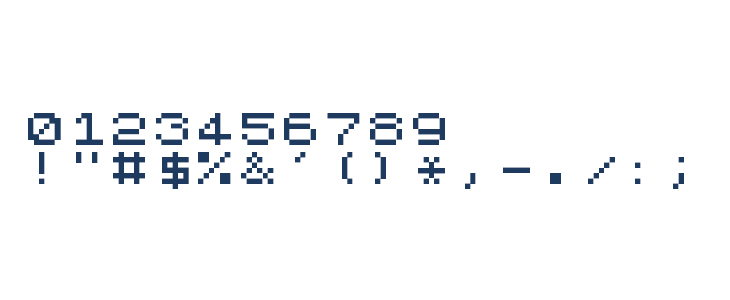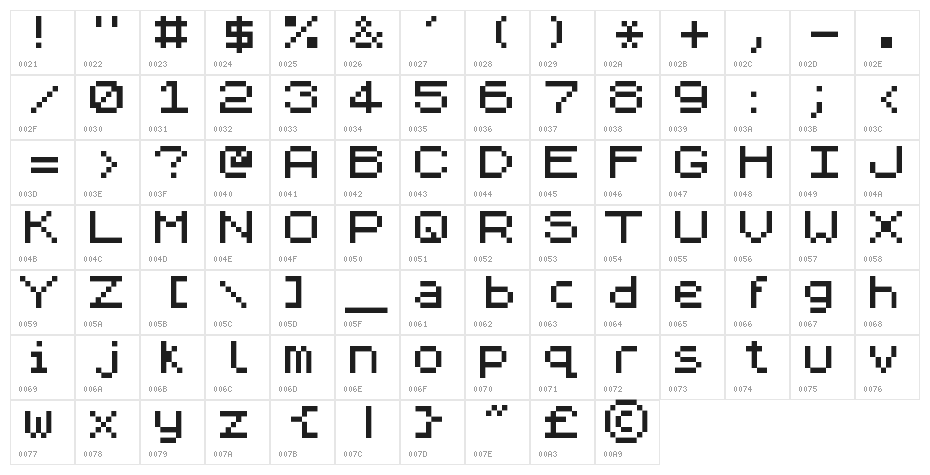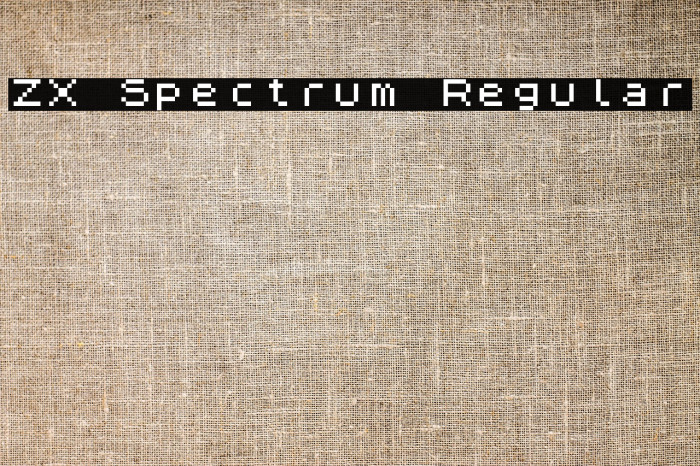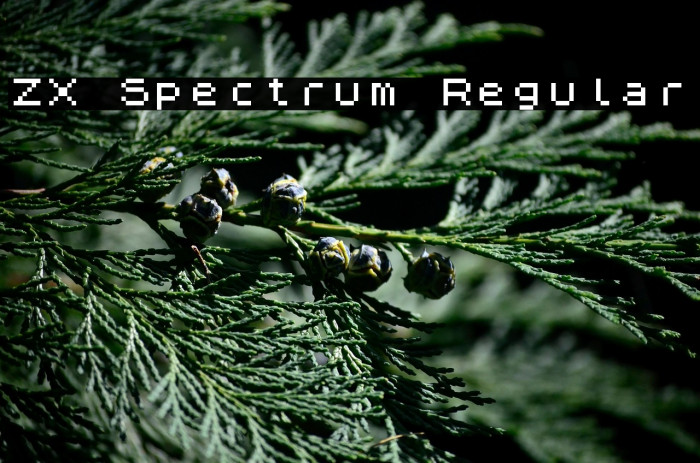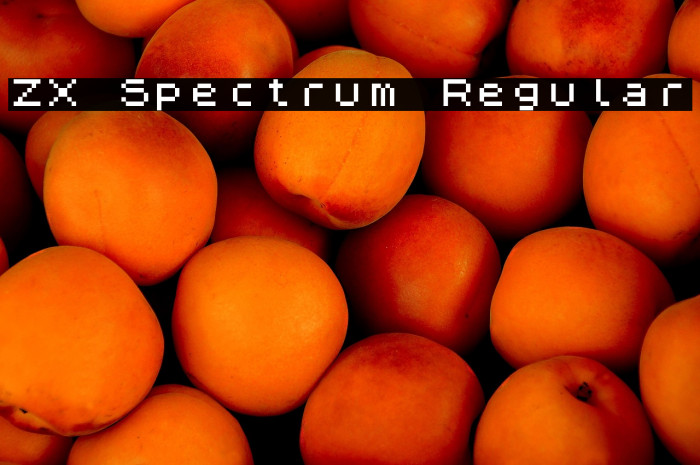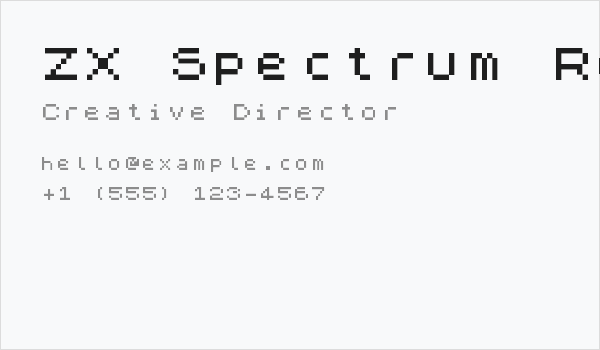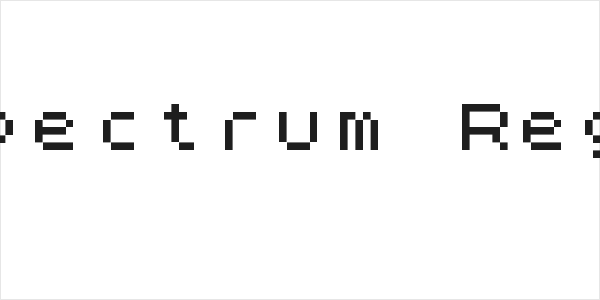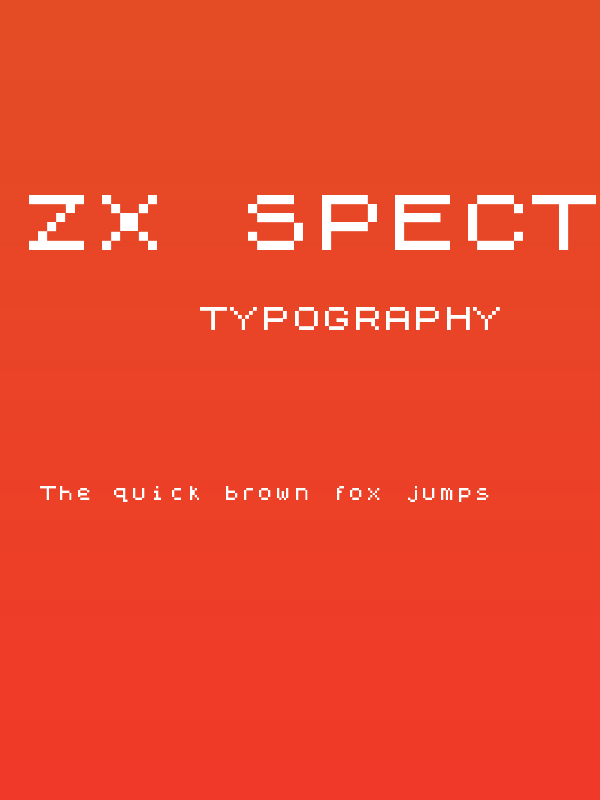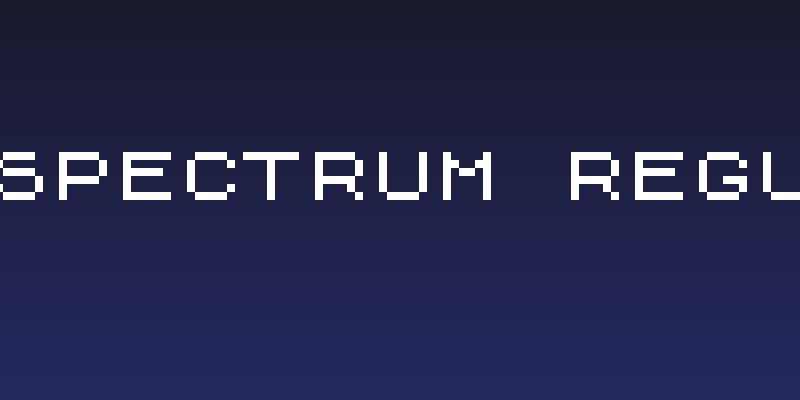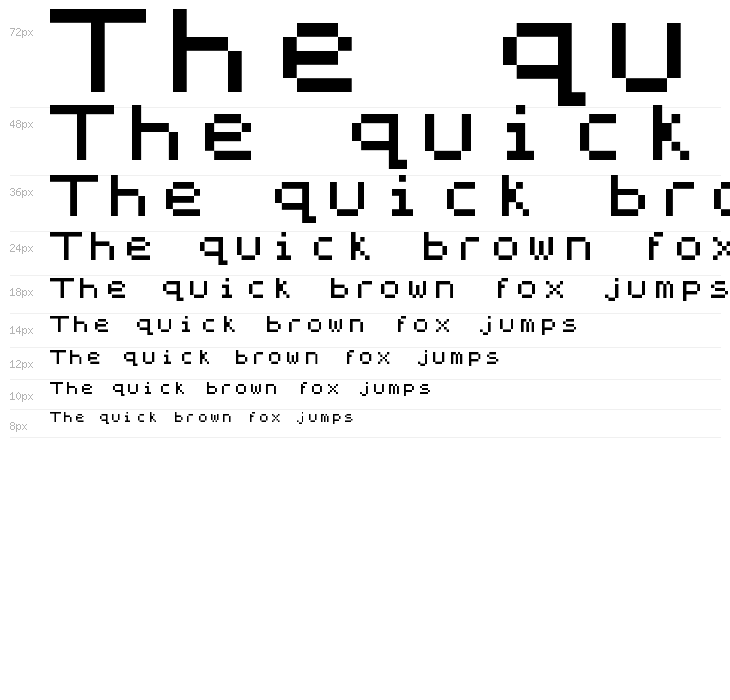
ZX Spectrum Regular Font
ZX Spectrum Regular Description
This font is a pixelated, monospaced typeface reminiscent of classic video game and computer fonts from the 1980s. Each character is constructed with a grid-like precision, giving it a retro, digital aesthetic. The uppercase and lowercase letters maintain a consistent height and width, contributing to its uniform appearance. The numerals and special characters are similarly designed, ensuring readability and a cohesive look across all glyphs. The font's simplicity and geometric structure make it ideal for projects that aim to evoke nostalgia or a vintage tech vibe.
| Use Case | Logos, Digital displays, Retro-themed designs |
| Proposed Projects | Ideal for retro video game designs, tech-themed posters, digital art, and any project seeking a vintage computer look. |